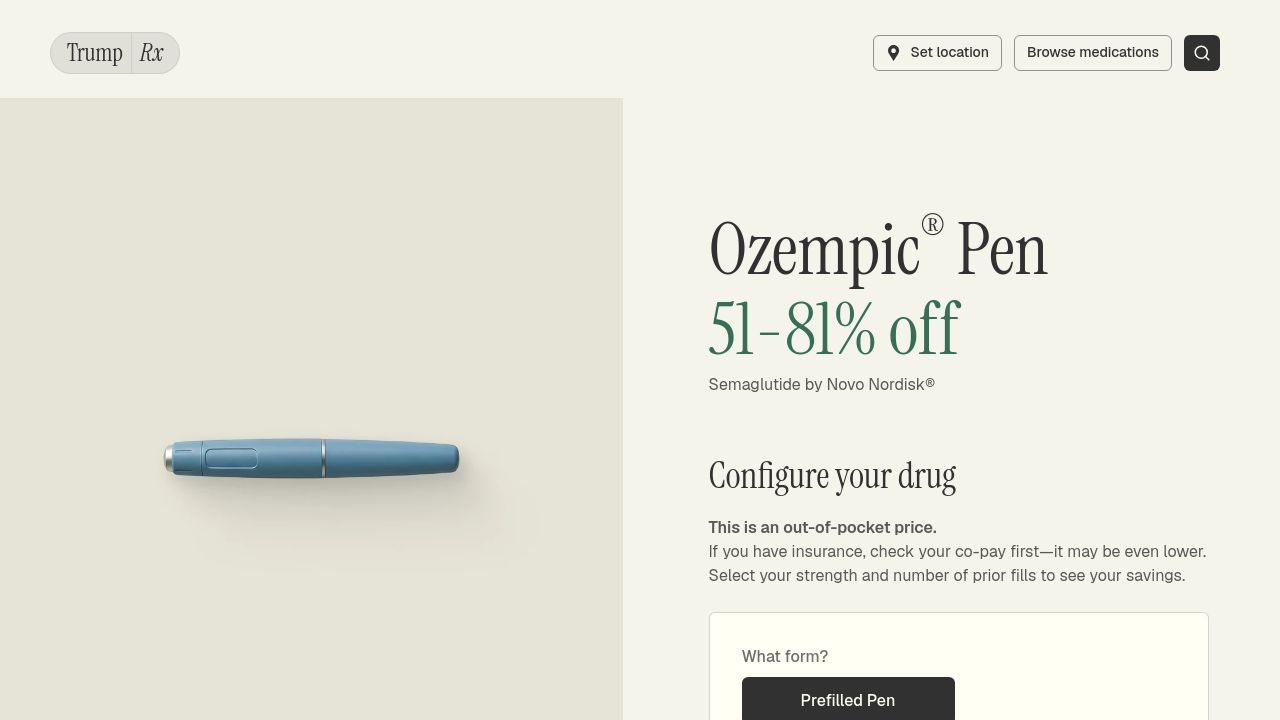
TrumpRx focuses on providing accessible pricing for Ozempic® Pen, appealing to a health-conscious audience. The site employs Geist Mono and Geist, which offer a contemporary yet approachable feel, while Instrument Serif adds a touch of reliability. The choice of Caveat enhances the friendly, informal tone, making the experience more engaging for visitors seeking affordable medication options.
The primary fonts used on trumprx.gov are Geist Mono, Geist, Instrument Serif, and Caveat, each contributing to the site's unique visual identity.
Instrument Serif offers a clean and modern look, distinguishing itself from more traditional serif fonts by providing better readability and a contemporary aesthetic.
Geist Mono and Geist come in weights ranging from 100 to 900, while Instrument Serif is available in a standard weight of 400 and Caveat in a weight of 500.